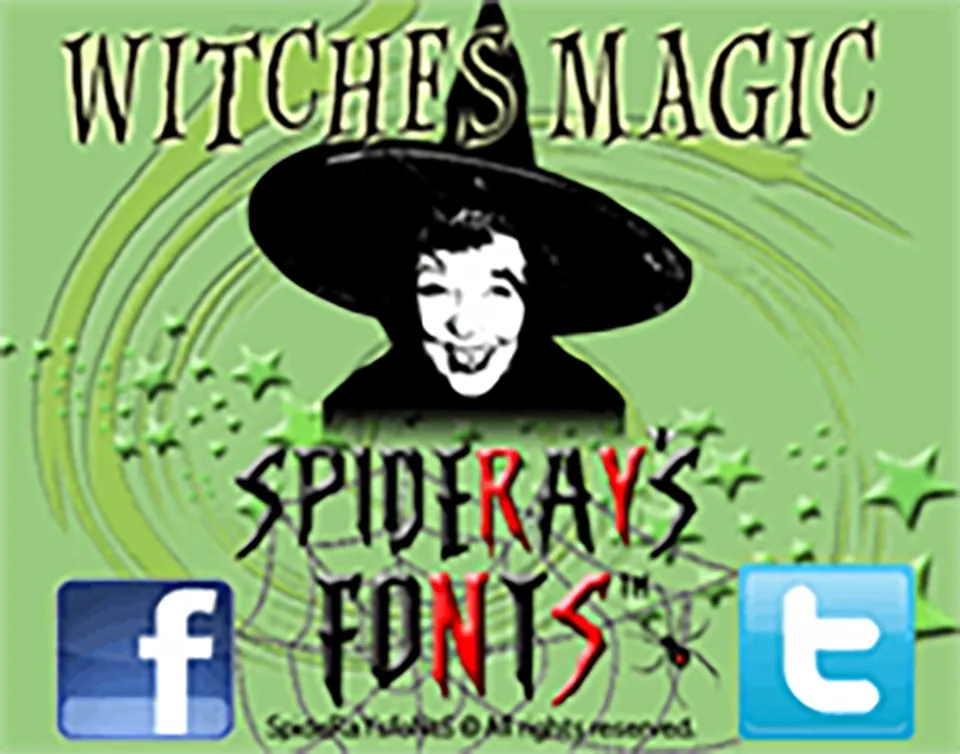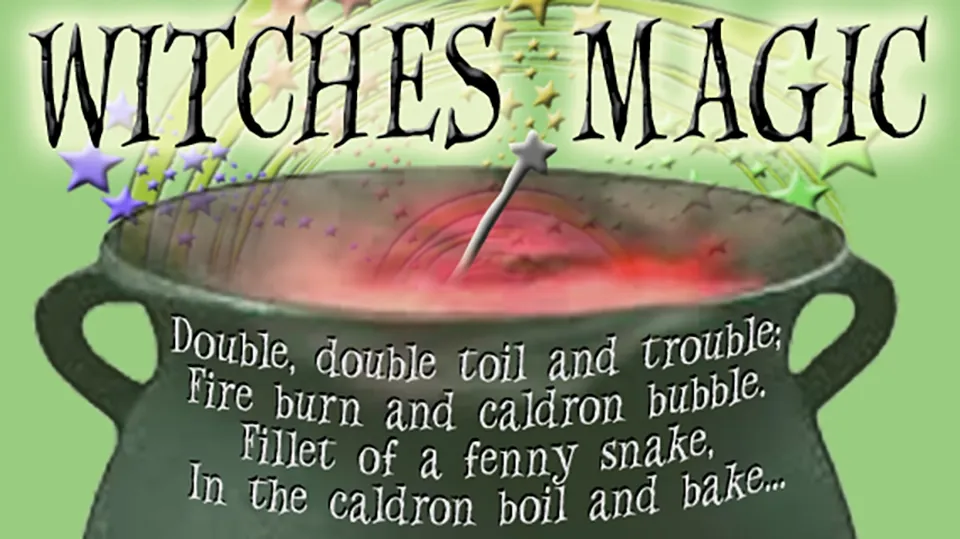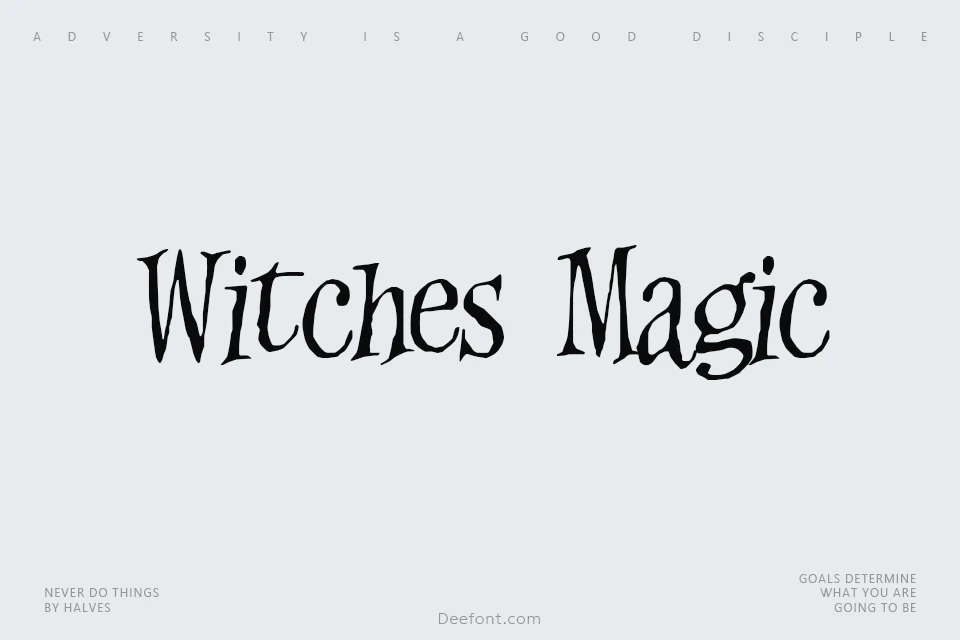
Witches Magic Font
Witches Magic Font is a captivating typeface that brings mystical allure to design projects. The font features intricate letterforms adorned with delicate swirls and enchanting curves, creating a visually stunning display that captures the essence of witchcraft and sorcery. Its whimsical, hand-drawn style gives each character an organic feel, with uneven strokes and playful curves that evoke magical tales and enchanted forests. The uppercase letters stand tall with a slight lean, while the lowercase letters maintain a consistent style. Perfect for spellbinding logos, bewitching headlines, book covers, Halloween invitations, themed merchandise, and any project requiring a touch of fantasy and creativity.